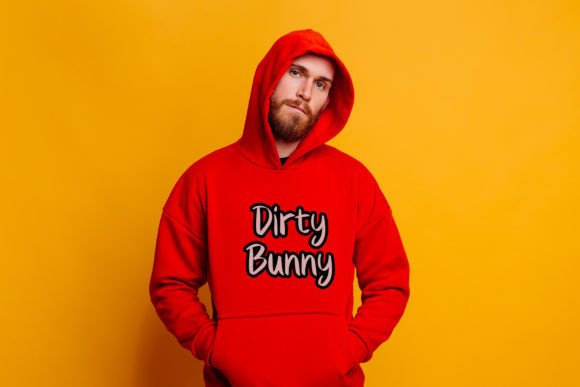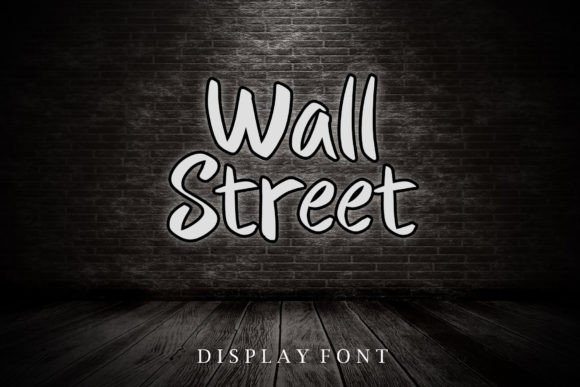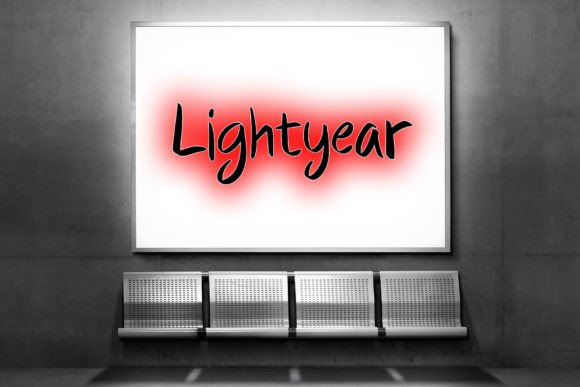
Introduction to Dirty Bunny Font
Dirty Bunny is a Display font.
That font is perfect for logos, greeting cards, package design, brand identity, craft design, any DIY project, book title, wedding invitation, packaging, another Christmas project, and more .